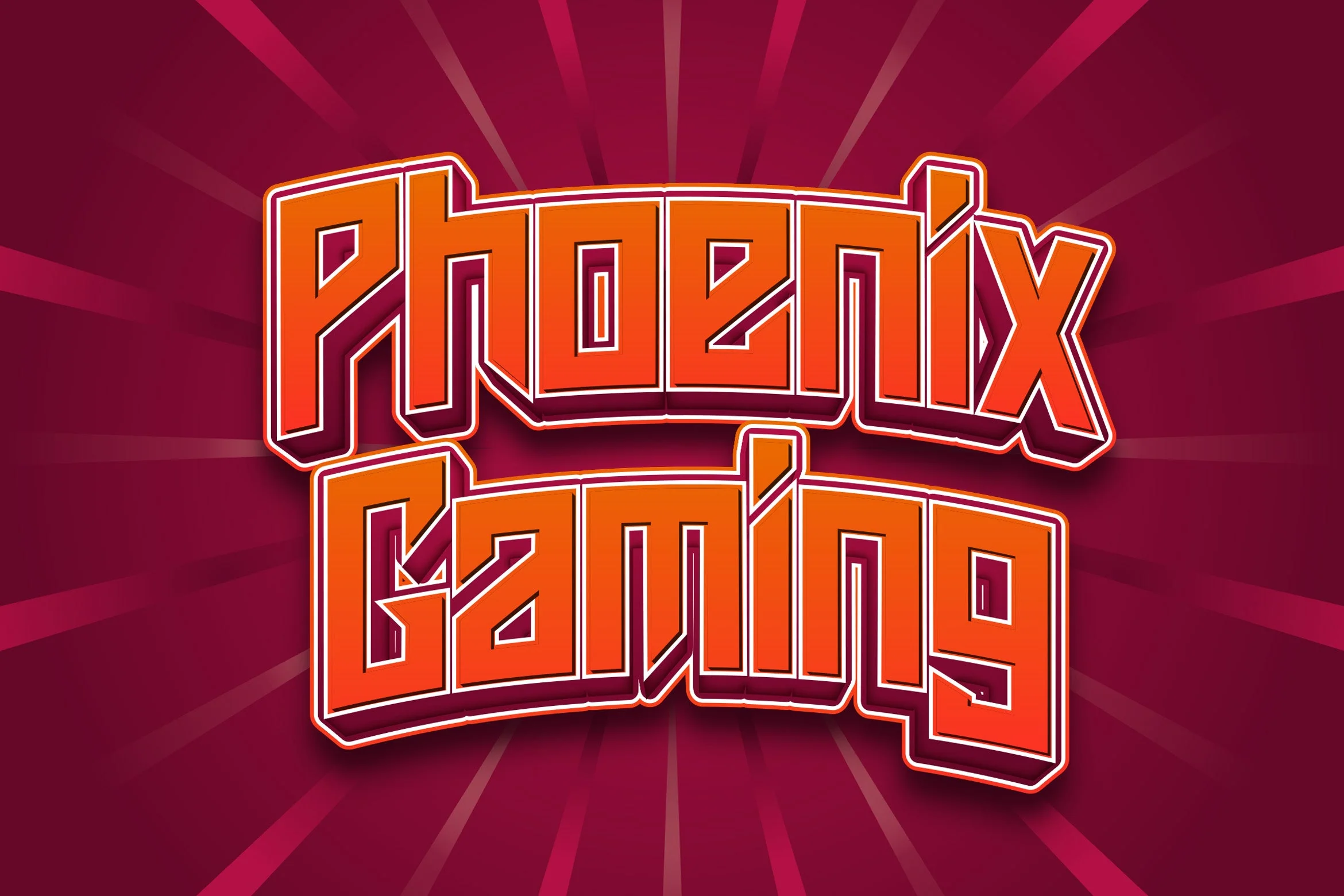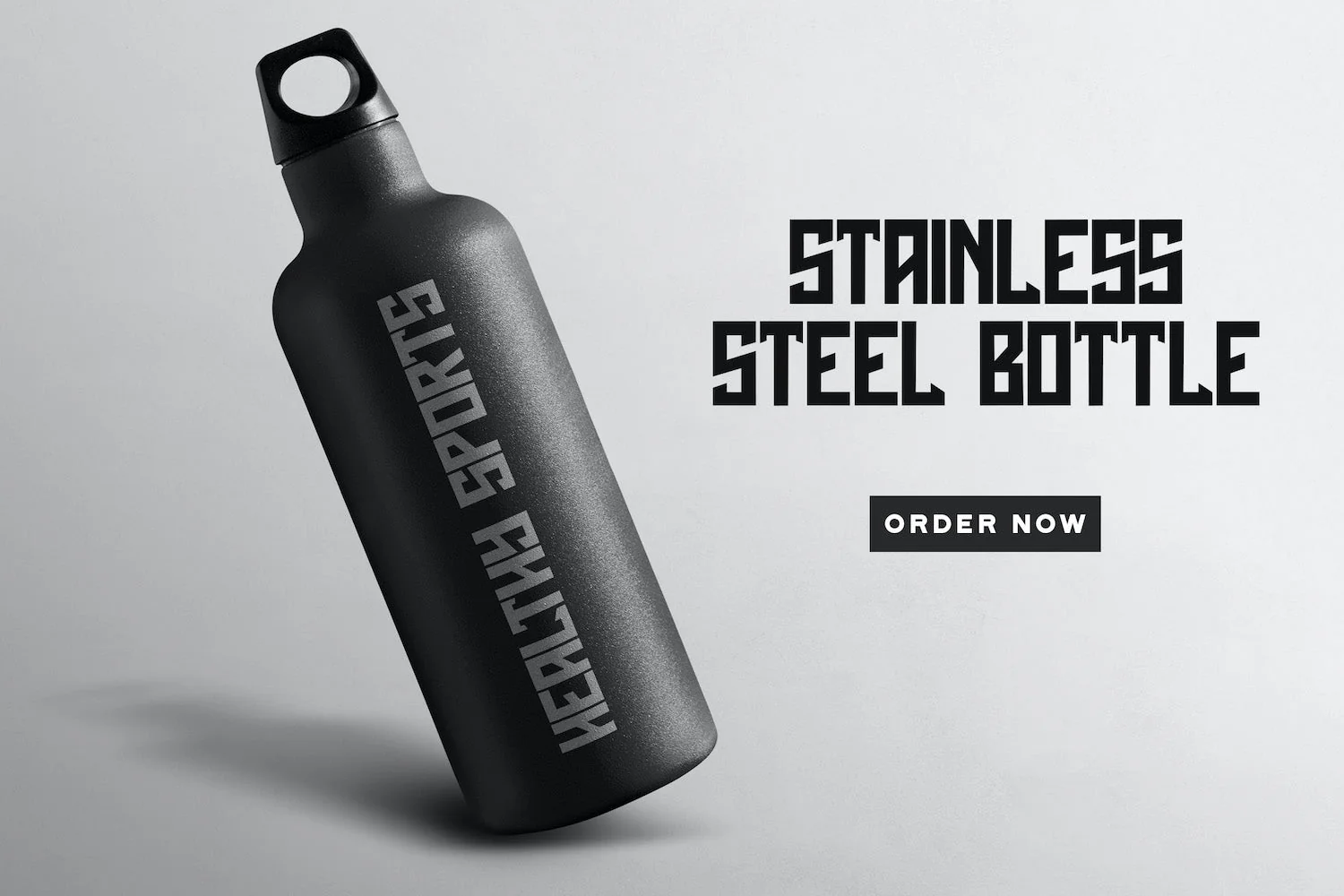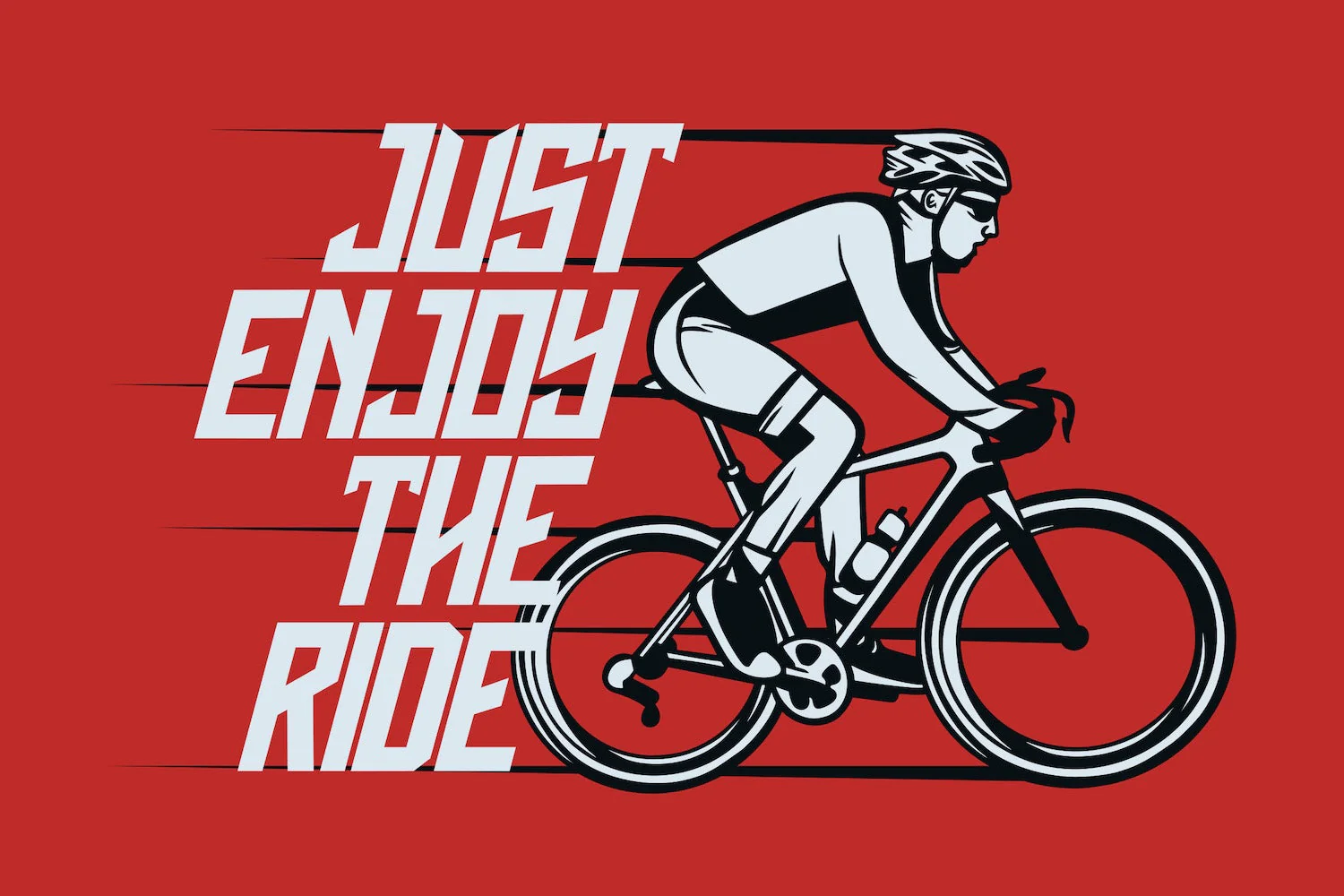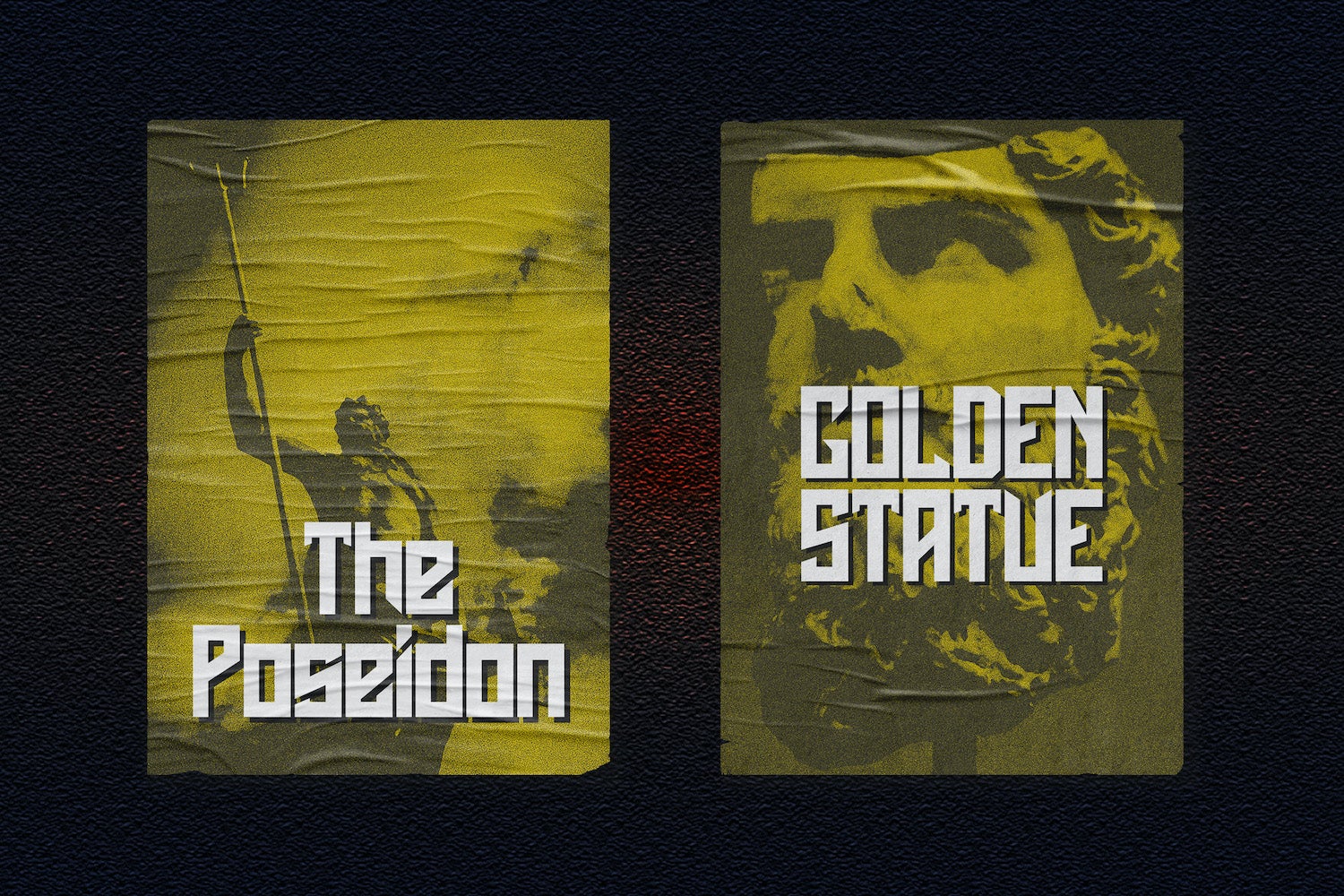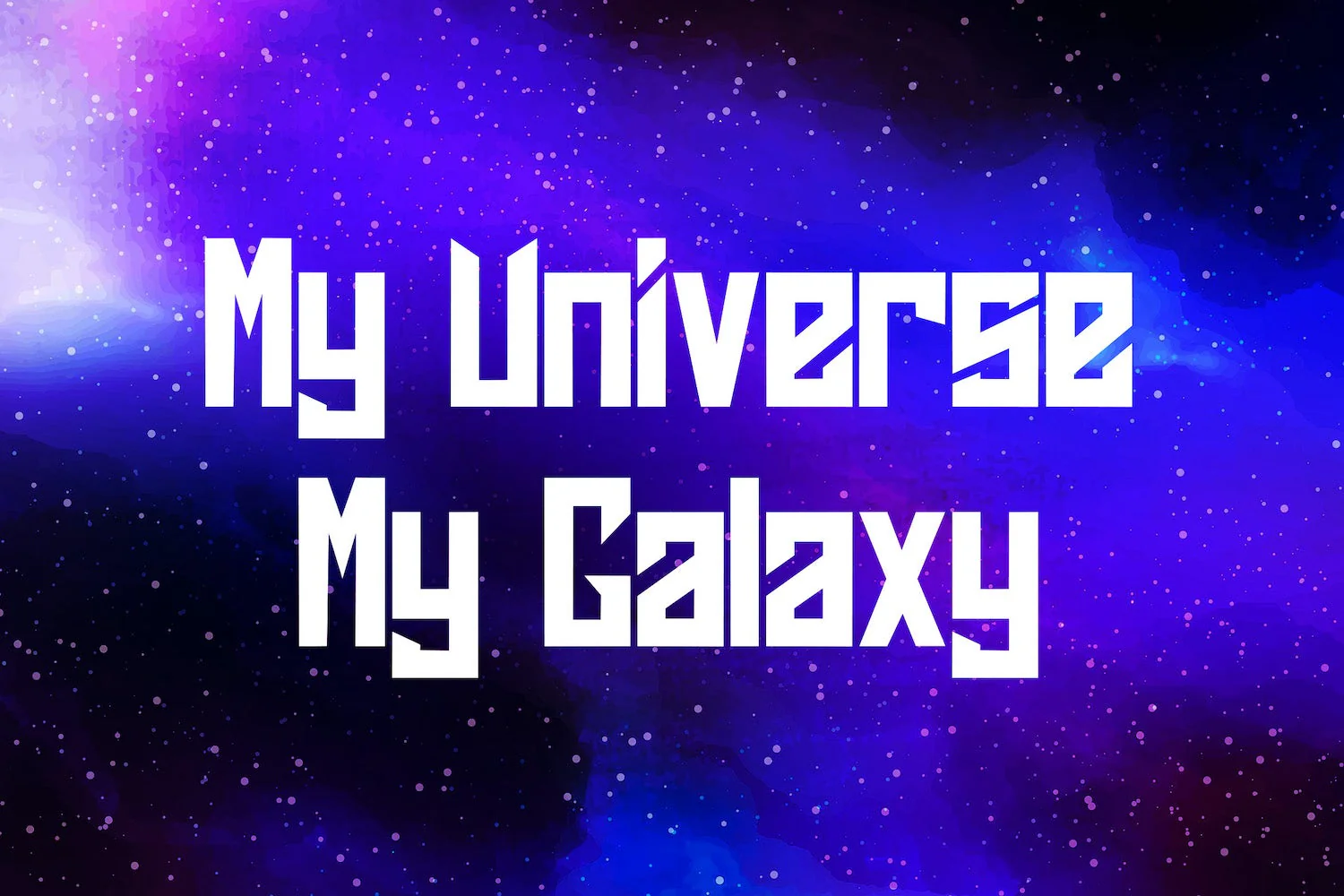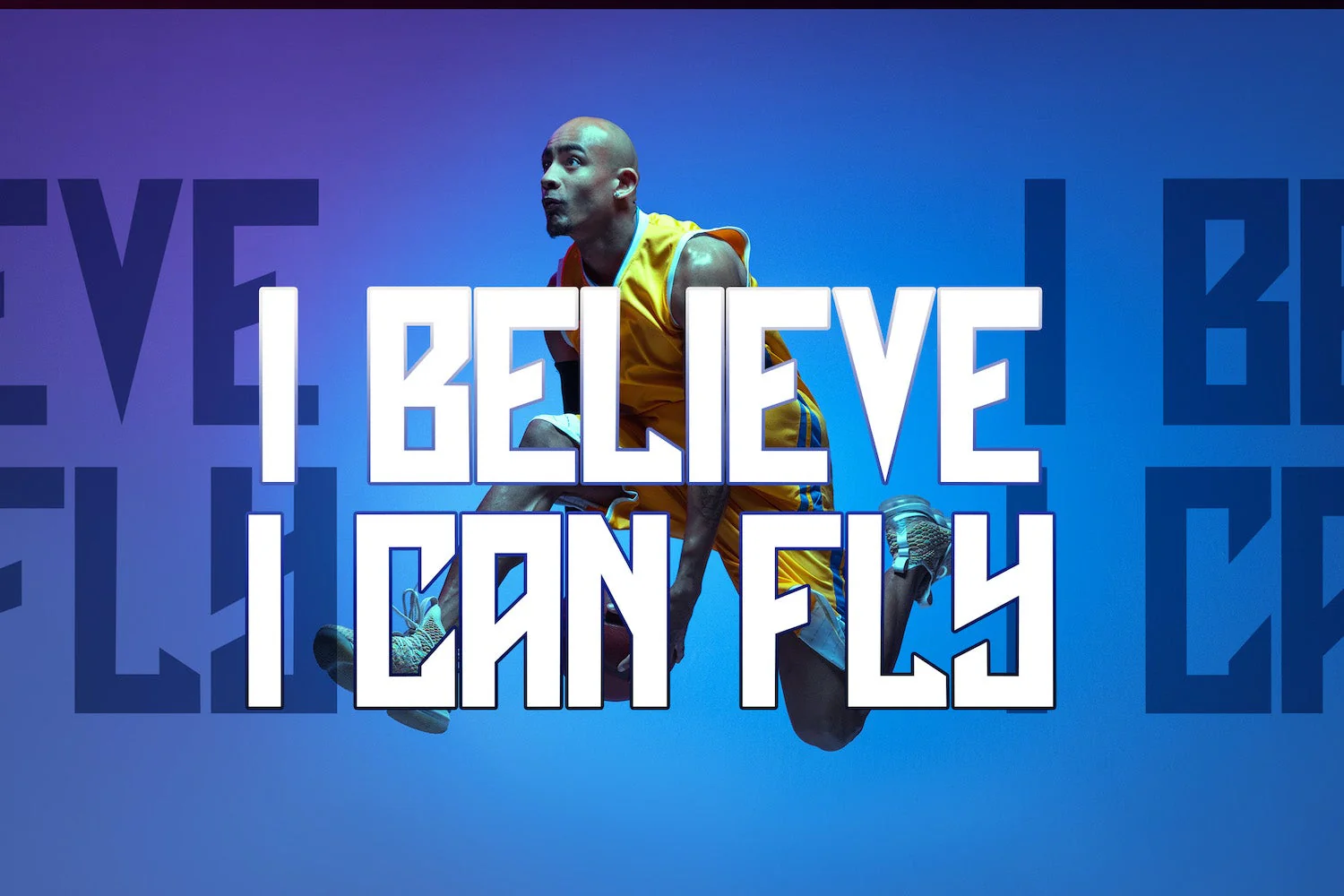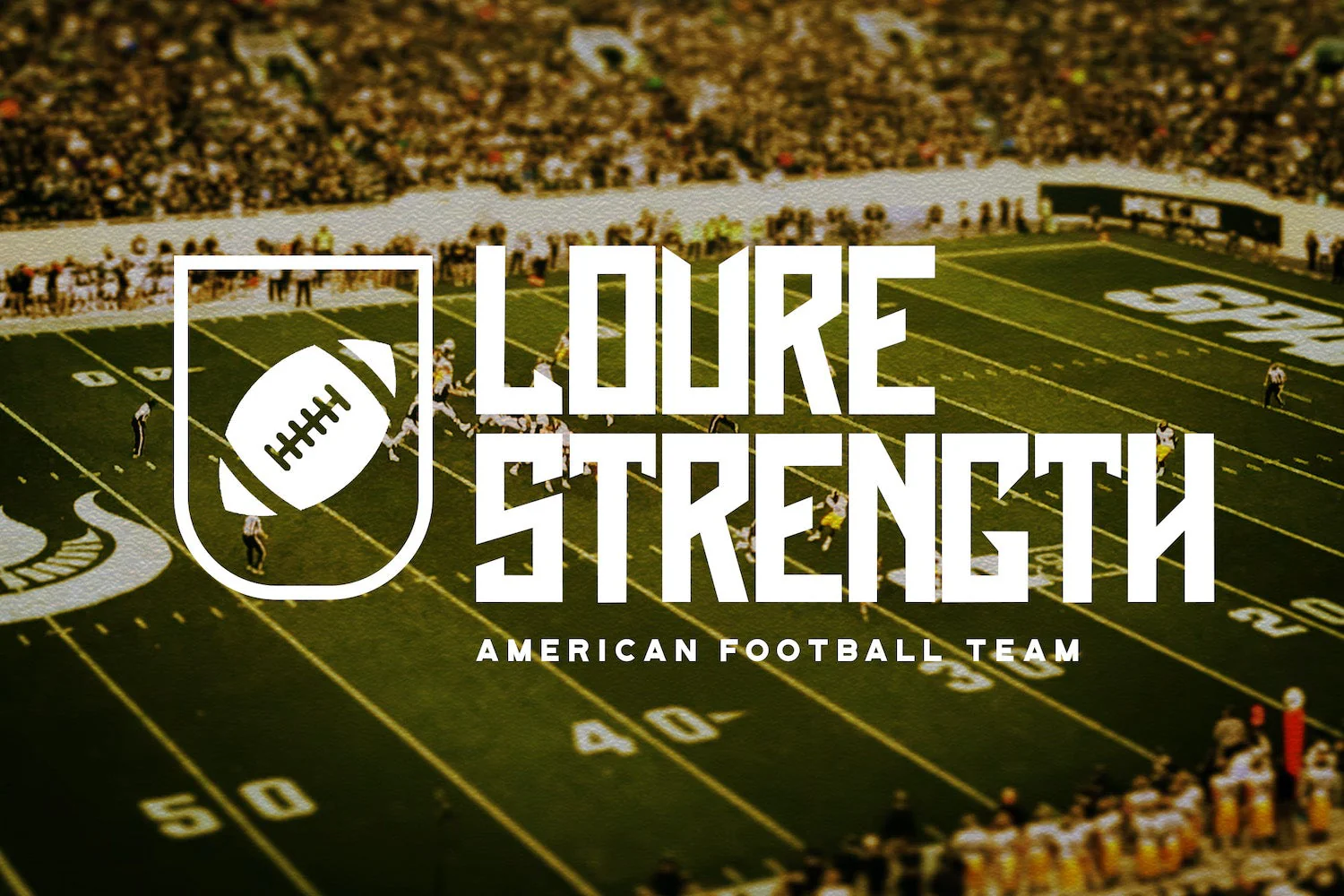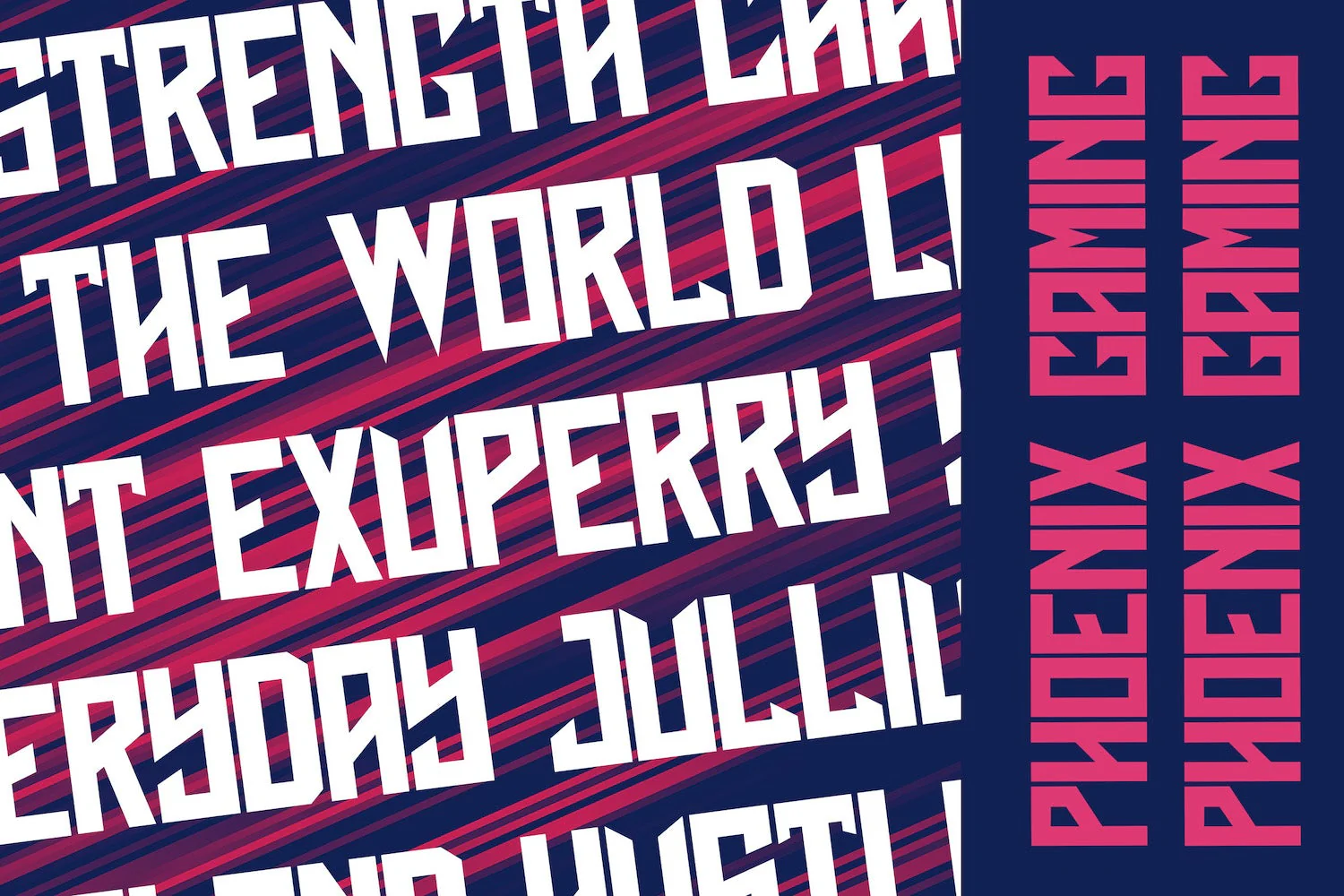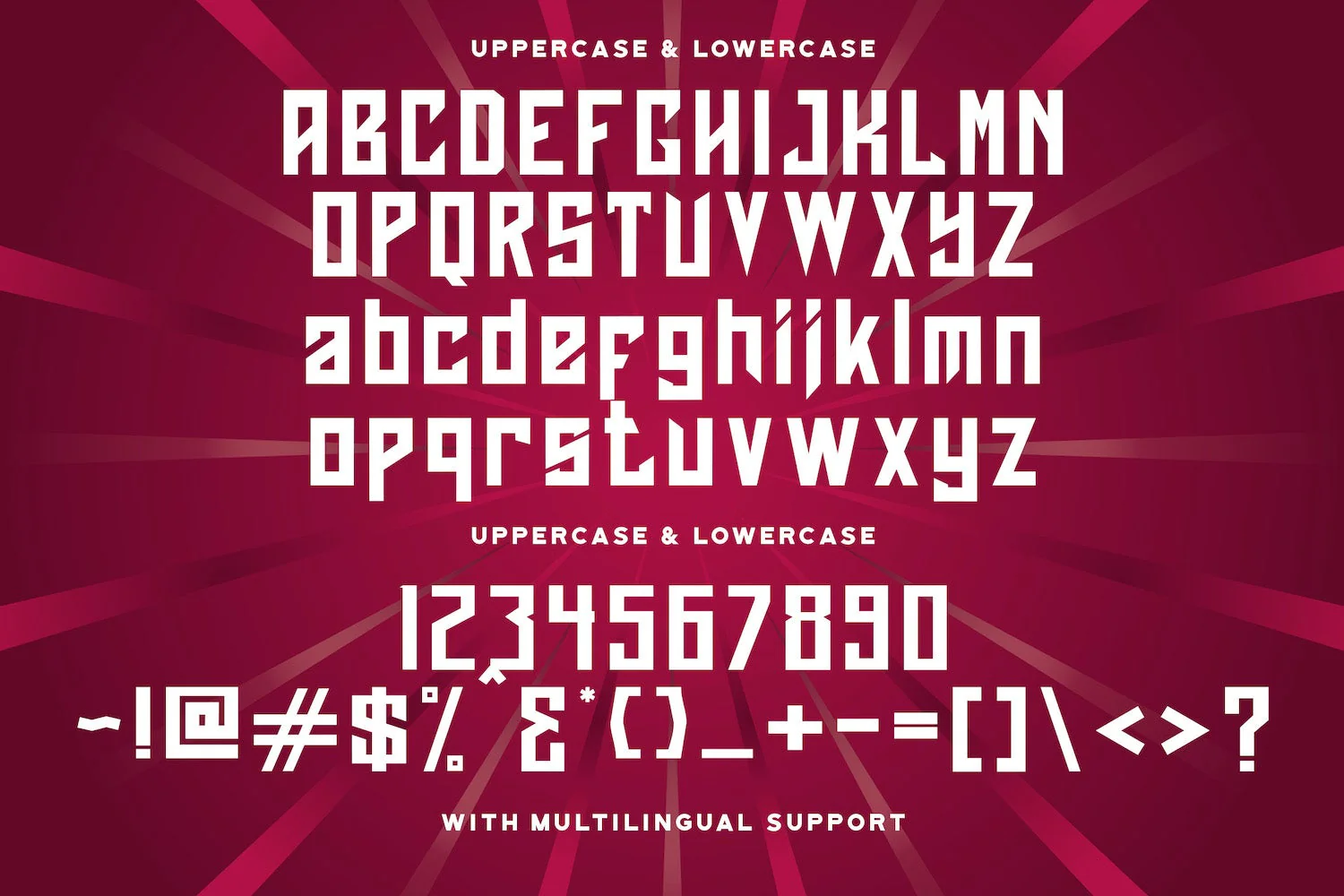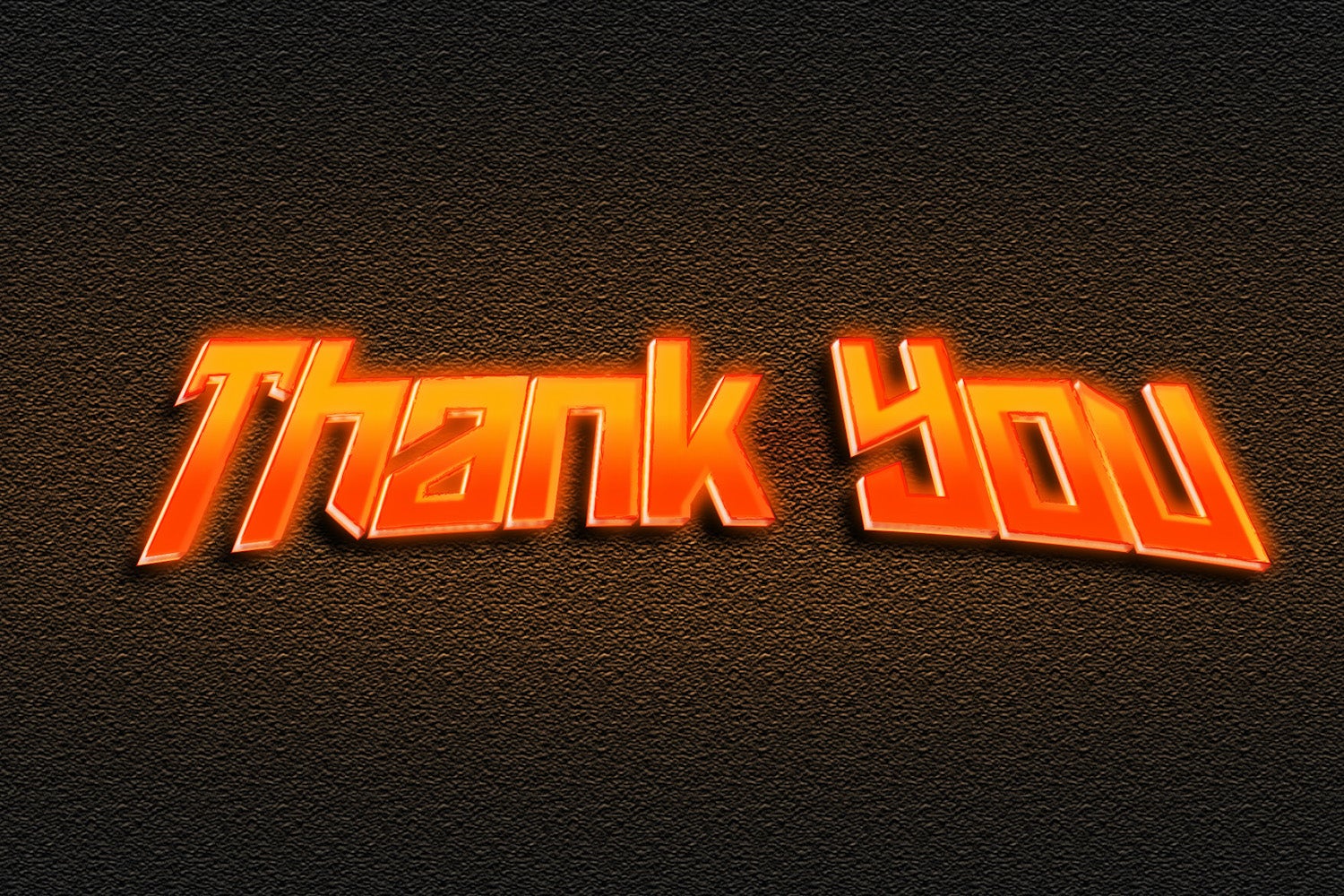
Phoenix Gaming - Futuristic Sans Font
Introducing Phoenix Gaming - Futuristic Sans Font
Phoenix Gaming is a modern futuristic sans font with a bold feel. It will add a contemporary update to any design project. On top of everything, it has a techno feel to it, making it ideal for titles, subtitles and UI.
Introducing Phoenix Gaming - Futuristic Sans Font
Phoenix Gaming is a modern futuristic sans font with a bold feel. It will add a contemporary update to any design project. On top of everything, it has a techno feel to it, making it ideal for titles, subtitles and UI.